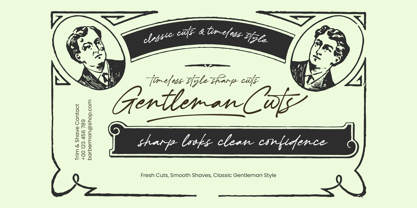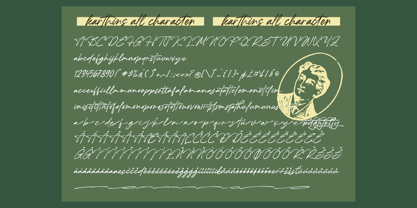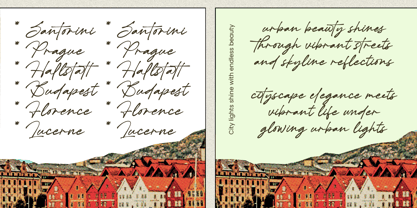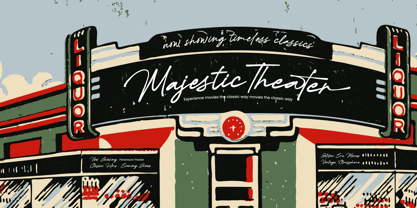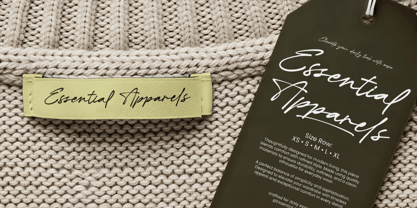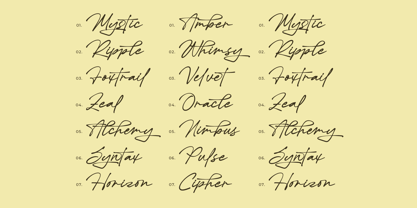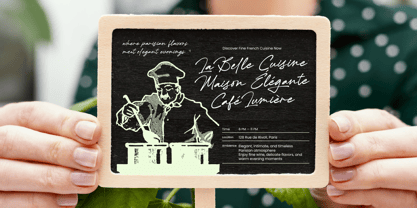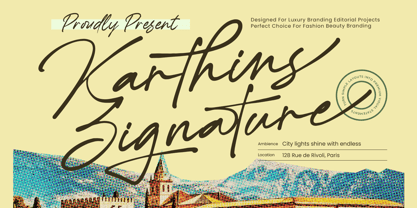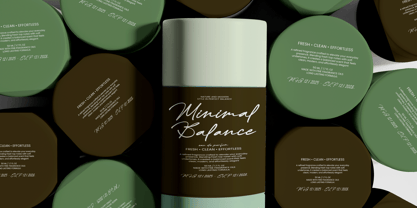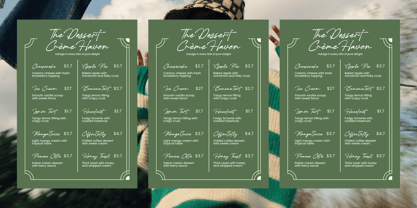
Karthins
by Letterena Studios
The Karthins Font Family was designed by Heru Utama Putra and published by Letterena Studios. Karthins contains 2 styles and family package options. More about this family
Karthins - Modern Signature Script represents a masterclass in sophisticated typography, blending fluid, rhythmic strokes with a contemporary aesthetic. This handwritten typeface captures the organic movement of a natural pen, offering a premium look that feels both personal and high-end. Its dynamic letterforms provide a unique visual rhythm, ensuring your designs stand out with an unmistakable sense of artistic flair and professionalism.
Transform your marketing materials into a definitive statement of luxury and refinement. Designed specifically for high-impact visuals, Karthins - Modern Signature Script is perfect for luxury branding, upscale packaging, and high-end editorial design. Whether you are crafting signature logos, exclusive invitation cards, or couture fashion labels, this font adds an air of bespoke craftsmanship. Its versatility makes it an ideal choice for social media branding and personalized stationery where a touch of authentic human connection is required.